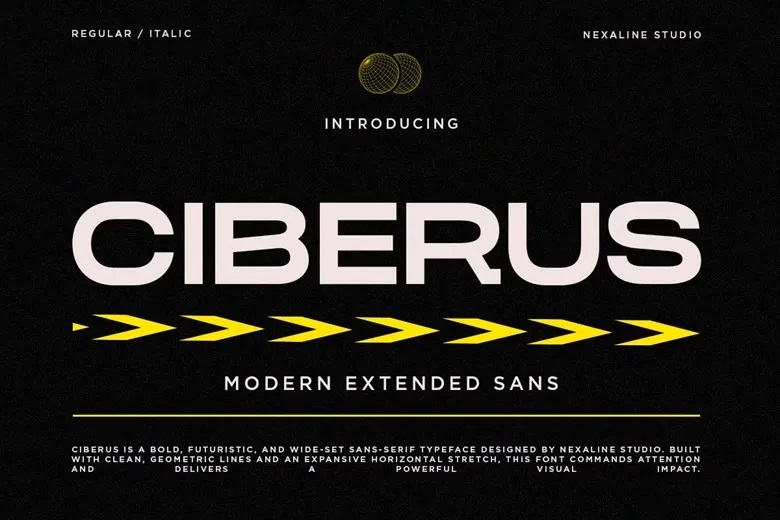
Ciberus Font
Ciberus is a bold, wide sans-serif font that stands out with its modern, futuristic style. Its extra-wide letters and clean lines give your designs a strong, eye-catching look. This font brings a sharp, industrial feel to any project.
Ciberus Sans Serif Font